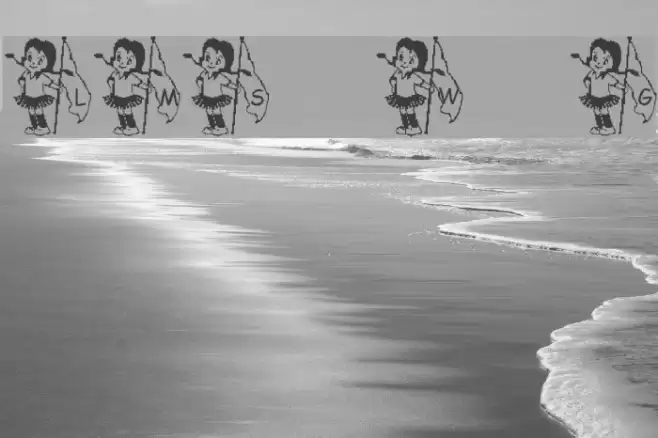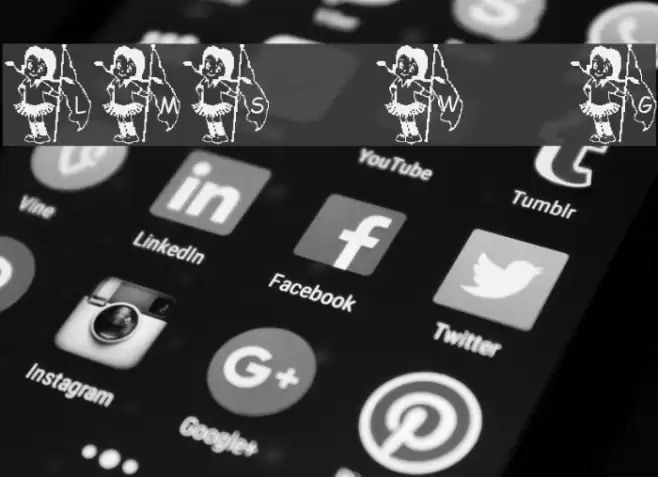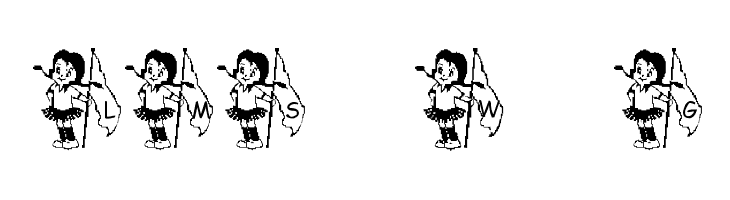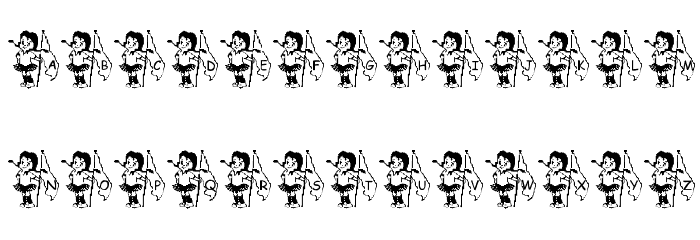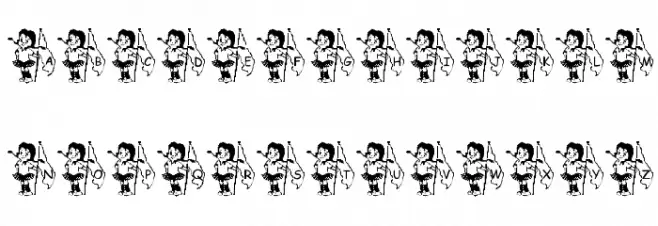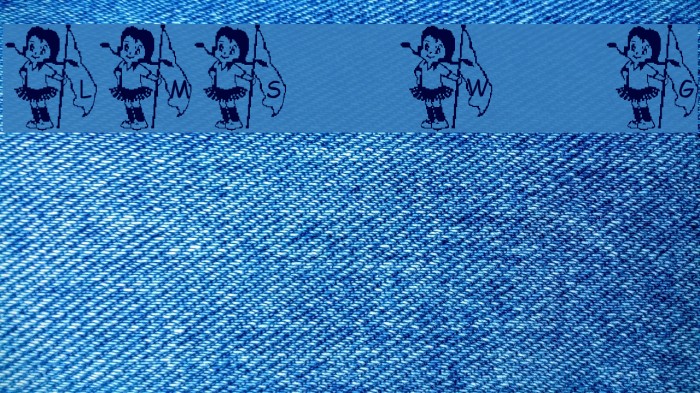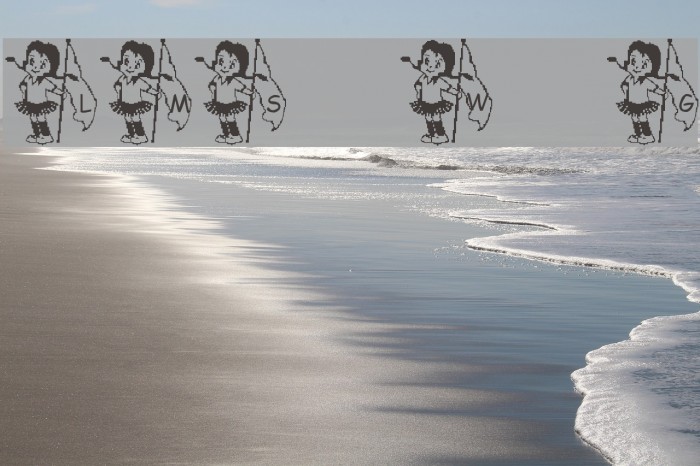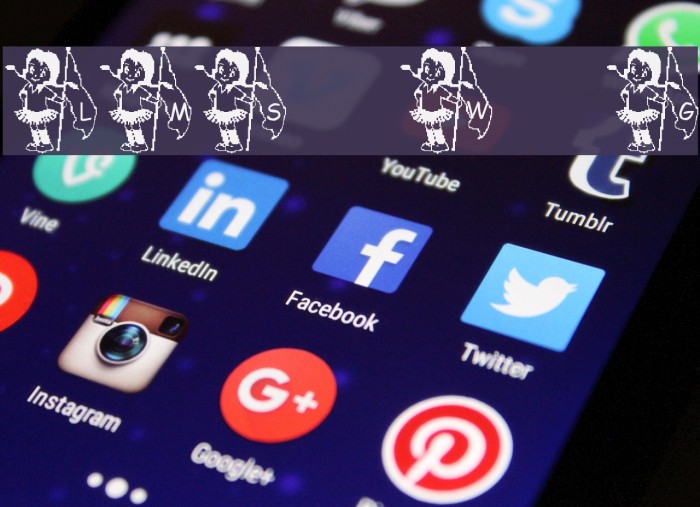
LMS Winterguard Girl Font
LMS Winterguard Girl Description
This playful and whimsical font features a charming character holding a flag, integrated with each letter. The design is highly decorative, with each character adding a unique and lively touch. The letters are bold and easily distinguishable, making them suitable for creative and fun projects. The overall style is cartoonish and light-hearted, perfect for adding a sense of joy and playfulness to any design. The characters are evenly spaced, ensuring readability despite the intricate design elements.
A whimsical, cartoonish font with characters holding flags, adding a playful touch from Uncategorized fonts.
- Proposed Projects: Ideal for children's books, playful posters, party invitations, and educational materials.